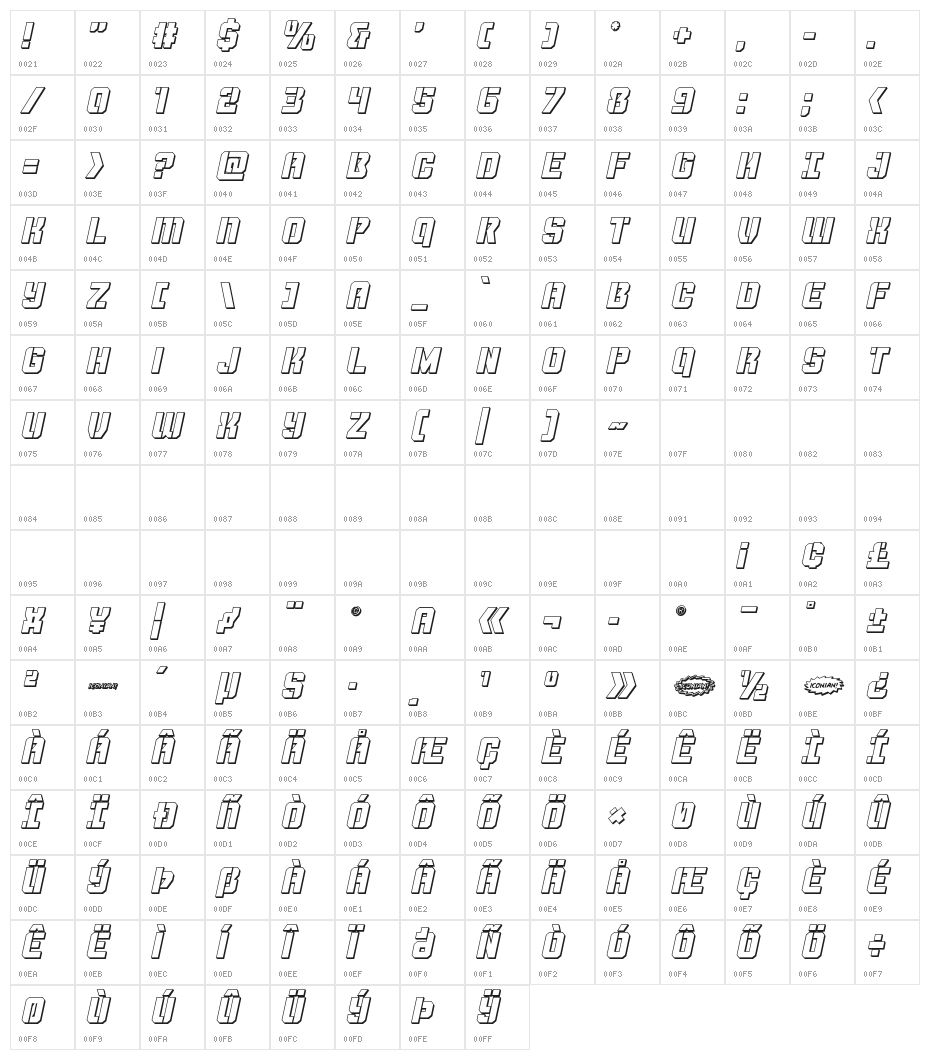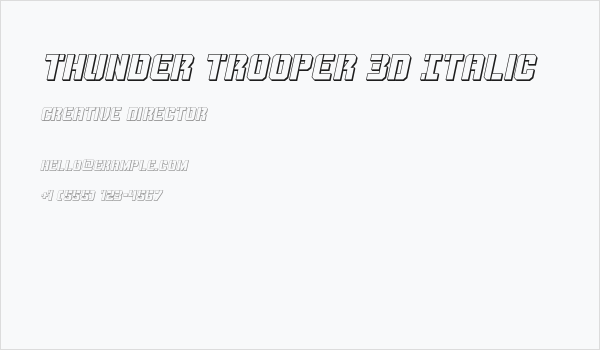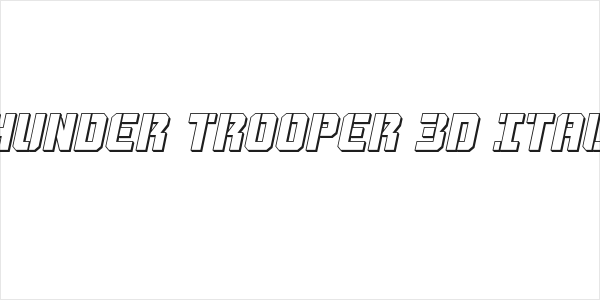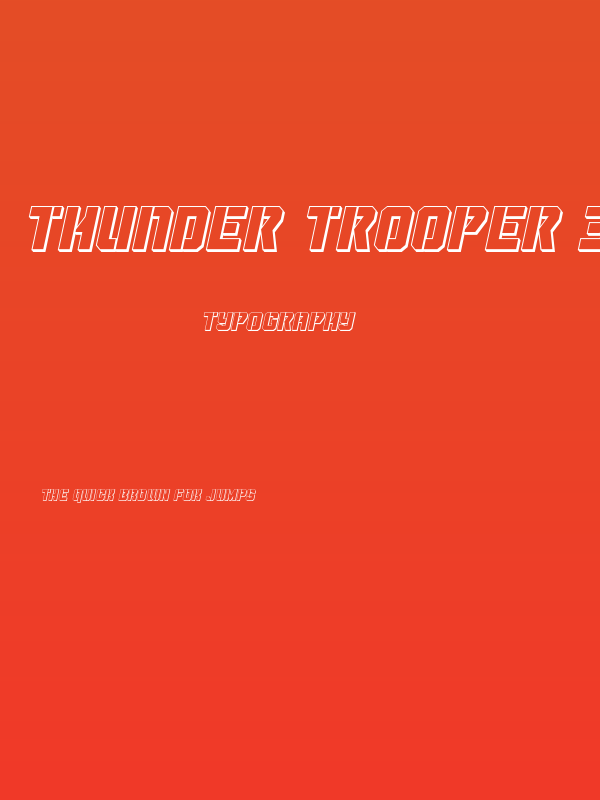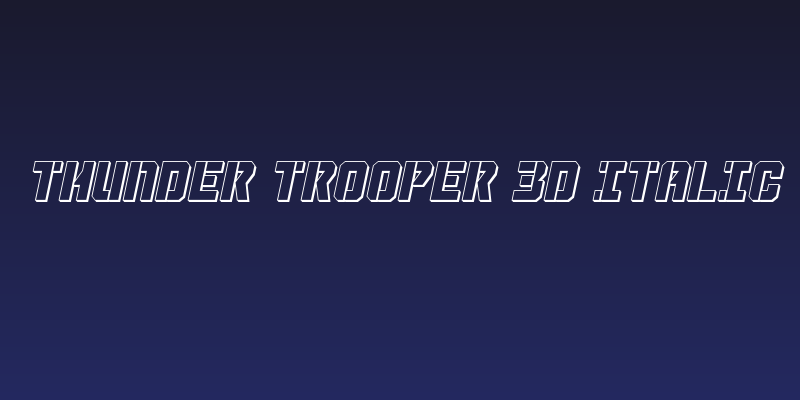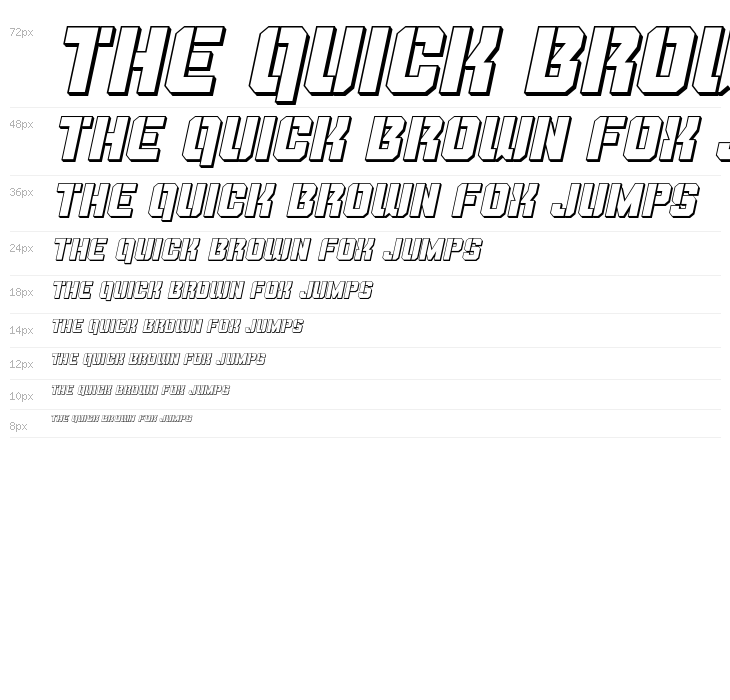
Thunder Trooper 3D Italic Font
Thunder Trooper 3D Italic Description
This font features a bold, three-dimensional design with an italic slant, creating a dynamic and futuristic appearance. The characters are outlined, giving them a hollow look that enhances their 3D effect. The uppercase letters are consistent in height, while the numbers and special characters maintain the same bold and angular style. The font's geometric structure and sharp edges convey a sense of strength and modernity, making it ideal for impactful designs.
Proposed ProjectsIdeal for video game titles, sci-fi movie posters, technology branding, and any project requiring a bold, futuristic look.